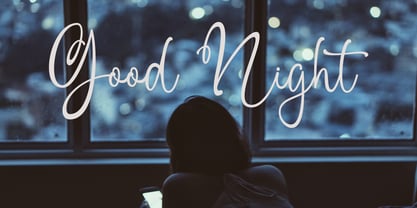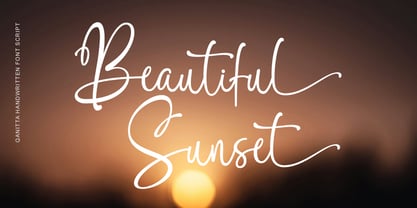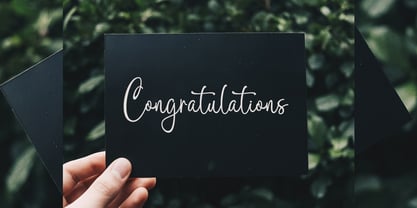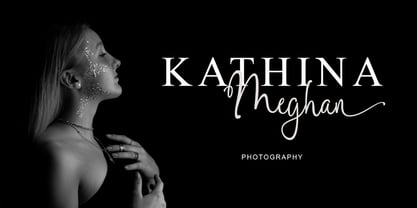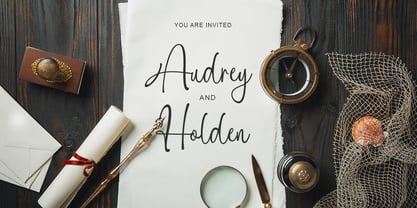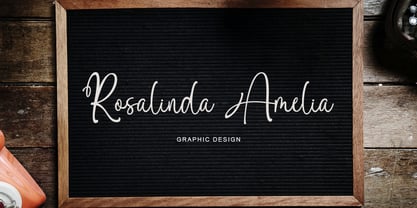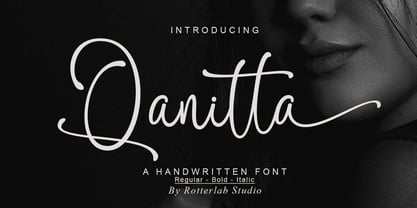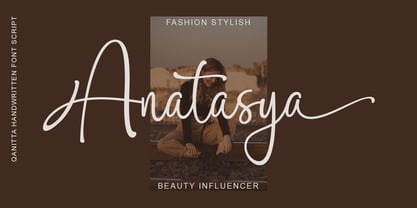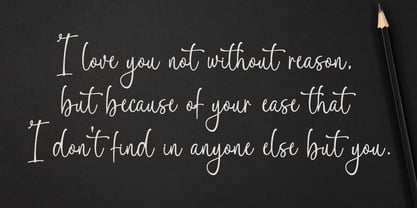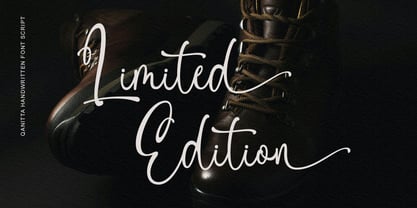
Qanitta
by Rotterlab Studio
The Qanitta Font Family was designed by Sidiq Fahmi and published by Rotterlab Studio. Qanitta contains 3 styles and family package options.
Qanitta is a casual handwritten font, this font perfect for logo, invitation, stationery, wedding designs, social media posts, advertisements, product packaging, product designs, label, photography, watermark, special events or anything.